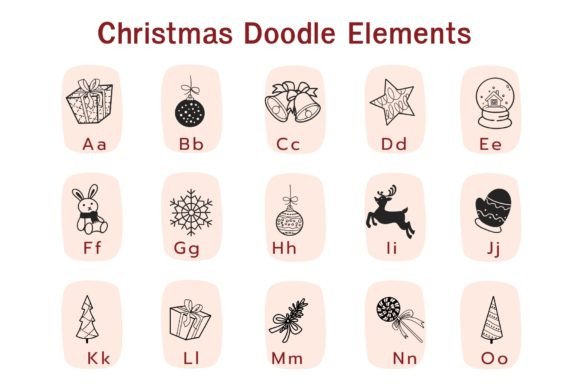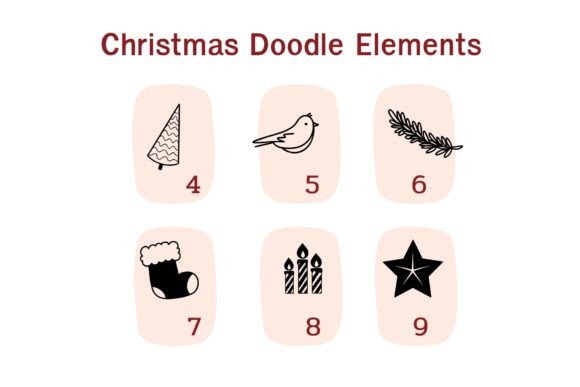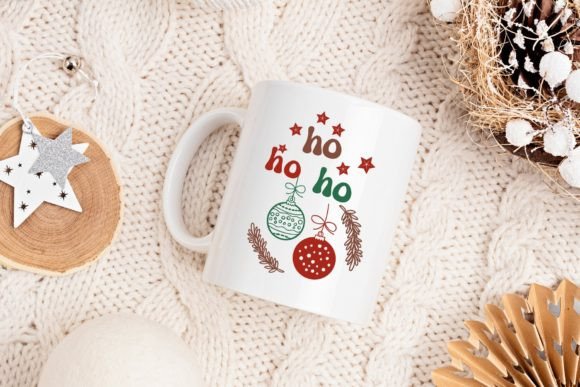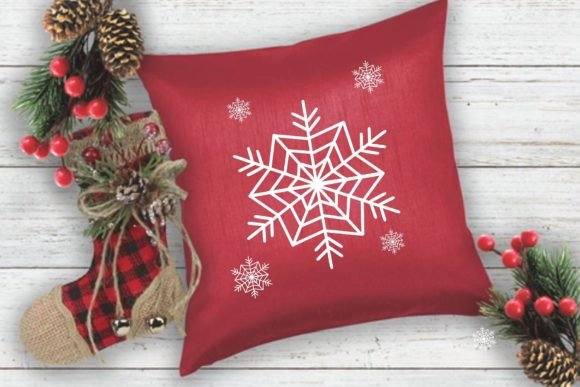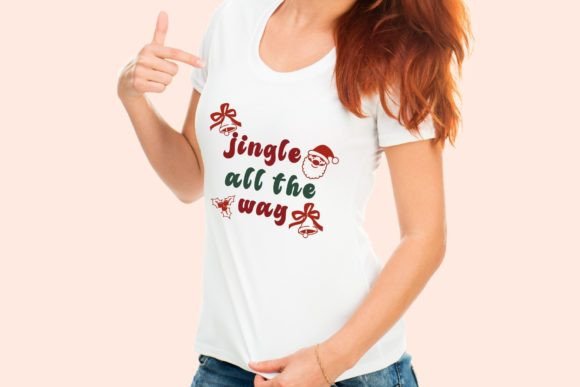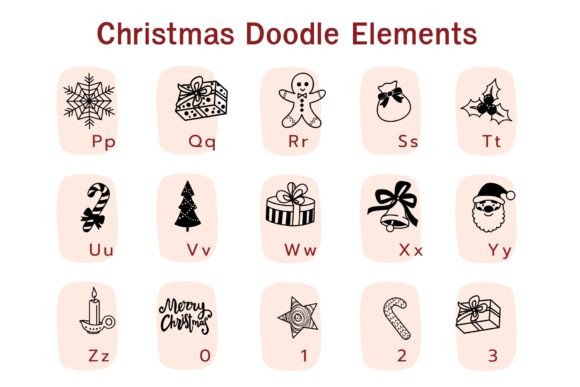
Deck the Halls with Christmas Doodle Elements Font
Are you looking for a fun and festive way to add some holiday cheer to your designs and decorations? Look no further than the Christmas Doodle Elements Font! This delightful dingbat font is filled with Christmas-themed symbols that are sure to bring a smile to everyone’s face. In this article, we’ll dive into the details of this fantastic font and explore how you can use it to make your holiday designs shine.
What is Christmas Doodle Elements Font?
Christmas Doodle Elements Font is a unique and creative dingbat font that features a wide range of Christmas-themed symbols. From traditional holiday icons like Christmas trees, snowflakes, and ornaments, to more playful elements like presents, candy canes, and gingerbread men, this font has everything you need to add a touch of holiday magic to your designs.
Key Features of Christmas Doodle Elements Font
- Fun and festive designs: Each symbol in the font is carefully crafted to bring a sense of joy and festivity to your designs.
- Wide range of holiday icons: The font includes a diverse set of Christmas-themed symbols, from classic trees and snowflakes to more whimsical designs like reindeer and holly.
- Perfect for designers and crafters: Whether you’re a professional designer or a crafter looking for a fun way to decorate your projects, this font is ideal for anyone looking to add a personal touch to their holiday designs.
Here are a few ideas for using Christmas Doodle Elements Font:
- Holiday cards and invitations: Add a personal touch to your holiday cards and invitations with custom illustrations and decorations.
- Social media graphics: Create festive social media graphics to get your followers in the holiday spirit.
- Decorative borders and frames: Use the font to create decorative borders and frames for your holiday designs, such as gift tags, gift boxes, and more.
- Craft projects: Add a touch of holiday cheer to your craft projects, such as scrapbooking, paper crafting, and DIY decorations.
- Experiment with different colors and textures: Don’t be afraid to try out different colors and textures to add depth and interest to your designs.
- Combine with other fonts and graphics: Mix and match Christmas Doodle Elements Font with other fonts and graphics to create unique and eye-catching designs.
- Use for non-holiday projects: While the font is designed for holiday use, you can also use it to add a touch of whimsy and fun to non-holiday projects.